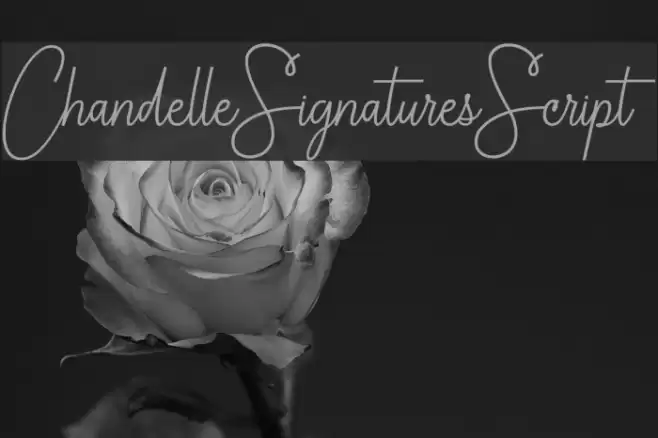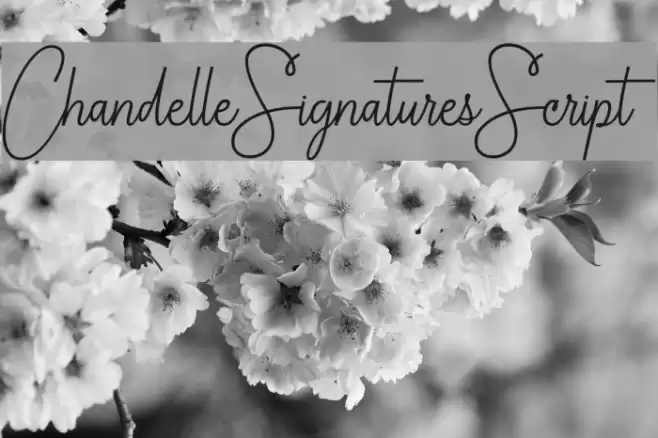
ChandelleSignaturesScript Font
ChandelleSignaturesScript Description
This font exudes elegance and sophistication with its flowing, cursive style. The characters are designed with a delicate touch, featuring thin, graceful lines that mimic the fluidity of handwriting. Each letter is crafted with a sense of movement, creating a dynamic and lively appearance. The uppercase letters are tall and slender, while the lowercase letters maintain a consistent flow, enhancing the script's overall cohesion. The font includes a full set of numerals and a variety of punctuation marks, all maintaining the same elegant style. This font is perfect for projects that require a personal, handwritten touch, such as invitations, greeting cards, or branding materials.
An elegant, cursive script font with a flowing, handwritten style from Uncategorized fonts.
- Proposed Projects: Ideal for wedding invitations, personal branding, greeting cards, and elegant stationery.
- Overall Style: Elegant, Handwritten
- Use Case: Logos, Invitations, Greeting Cards